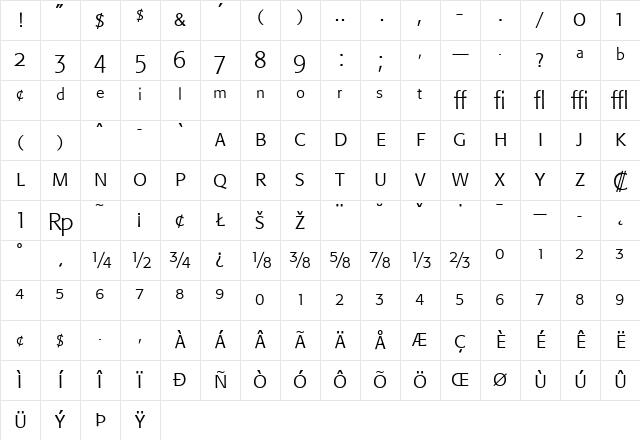
FormataExpert-Light Light
Design Context for FormataExpert-Light
FormataExpert-Light is a composed and adaptable typeface that performs quietly and consistently across a wide range of design contexts. Its slender proportions lend an understated elegance to any composition.